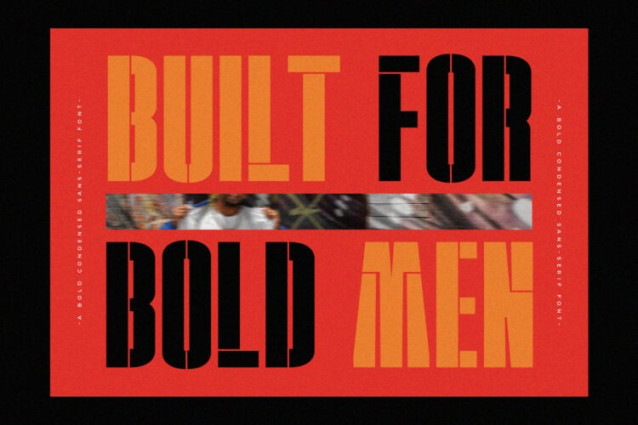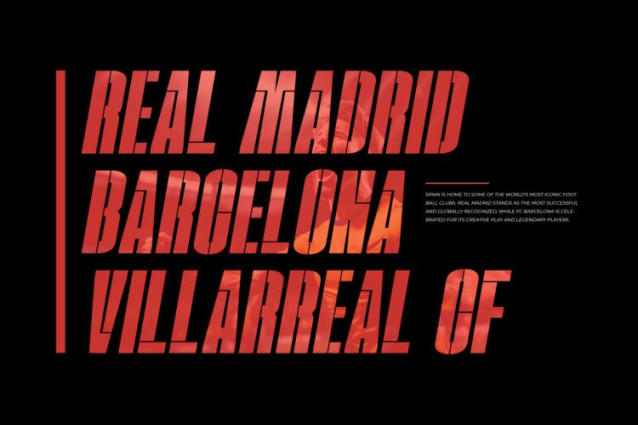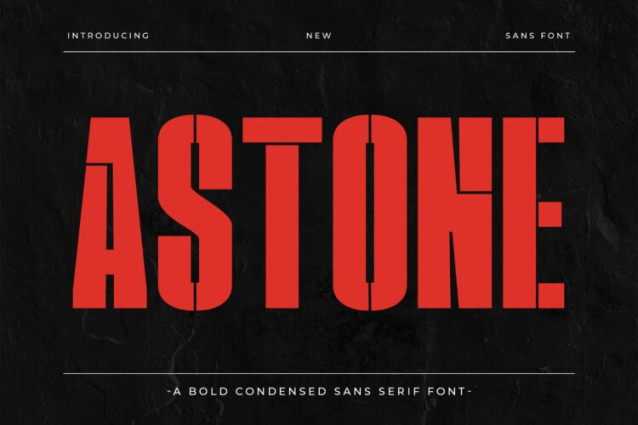
Astone Font
Astone Font is a modern and minimal sans-serif typeface crafted for clean, sophisticated branding. With its sleek lines and elegant proportions, Astone is perfect for editorial layouts, logo designs, packaging, and fashion-forward presentations. Its contemporary appeal meets timeless clarity — making it a reliable choice for designers seeking simplicity with a refined finish.